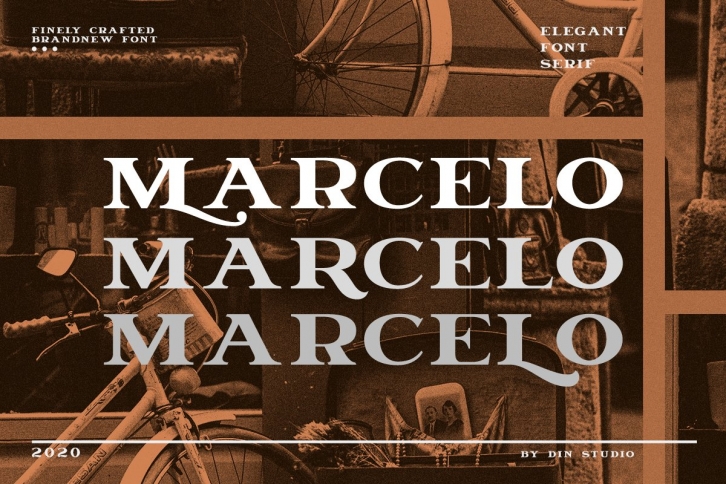
Introducing MARCELO - Engraved Font. The Marcelo font is an Engraved display font. Create from our talented font designer. The design of typeface will make your design more beautiful and inspiring. This font will suitable for any project, like branding, print template, logo and etc.
- Accents (Multilingual characters)
- 27 Alternates
- Numerals and Punctuation (OpenType Standard)